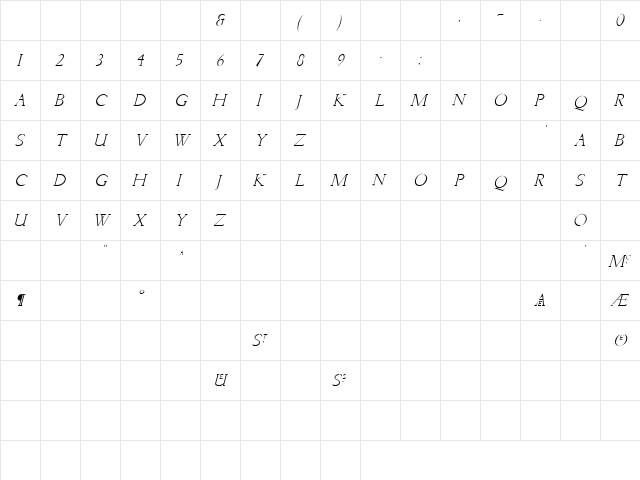
Breathe 4 Italic
Design Context for Breathe 4 Typeface
Breathe 4 takes a measured approach to typography — its balanced proportions and neutral character make it a reliable workhorse for both digital and print work. The dynamic lean of this cut emphasises speed and emphasis in any layout.
Pro Tip: Use Breathe 4 for emphasis, pull quotes, and subheadings where its slanted energy can add rhythm to the layout.